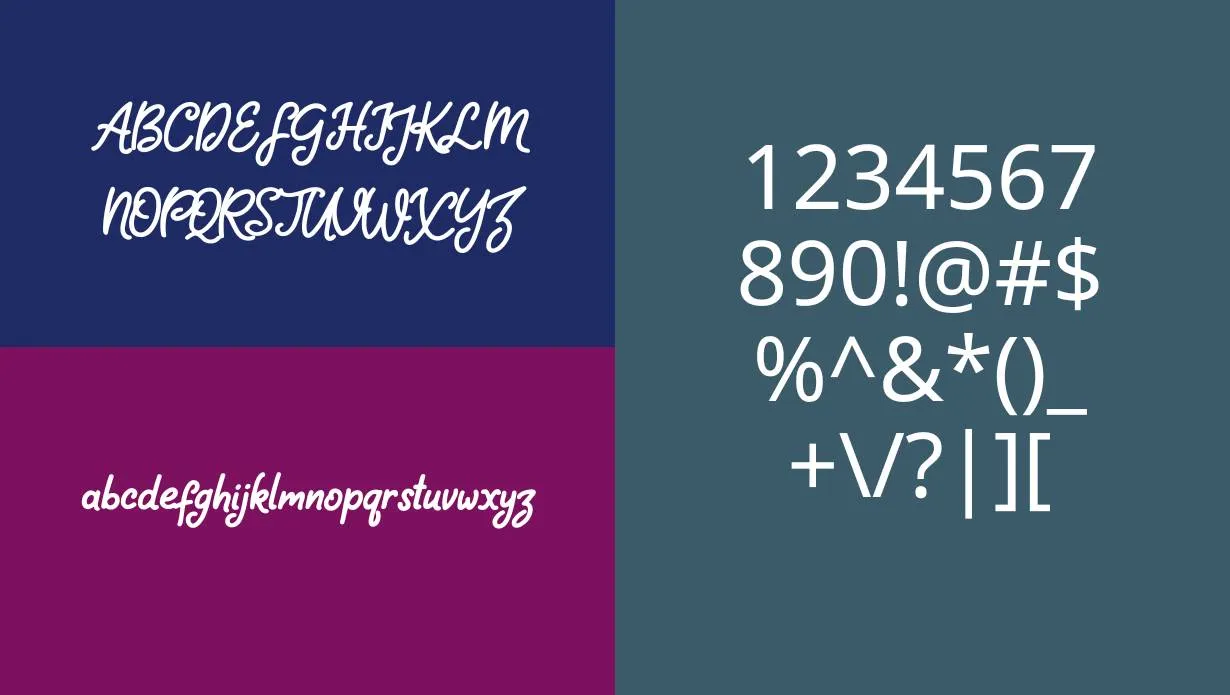
Falling Button Font is a unique and creative typeface with letters that appear to tumble. It adds an artistic flair to any kind of design. It belongs to the script font family. This font was designed by Eduardo Recife.
This font is ideal for artsy posters, creative advertisements, and any project that needs an innovative font. This font is also best for pairing with other fonts. You can pair this font with Brush Script Font to make your designs more attractive.
Falling Button Font Family
Name | Falling Button Font |
Designer | Eduardo Recife |
Style | Script |